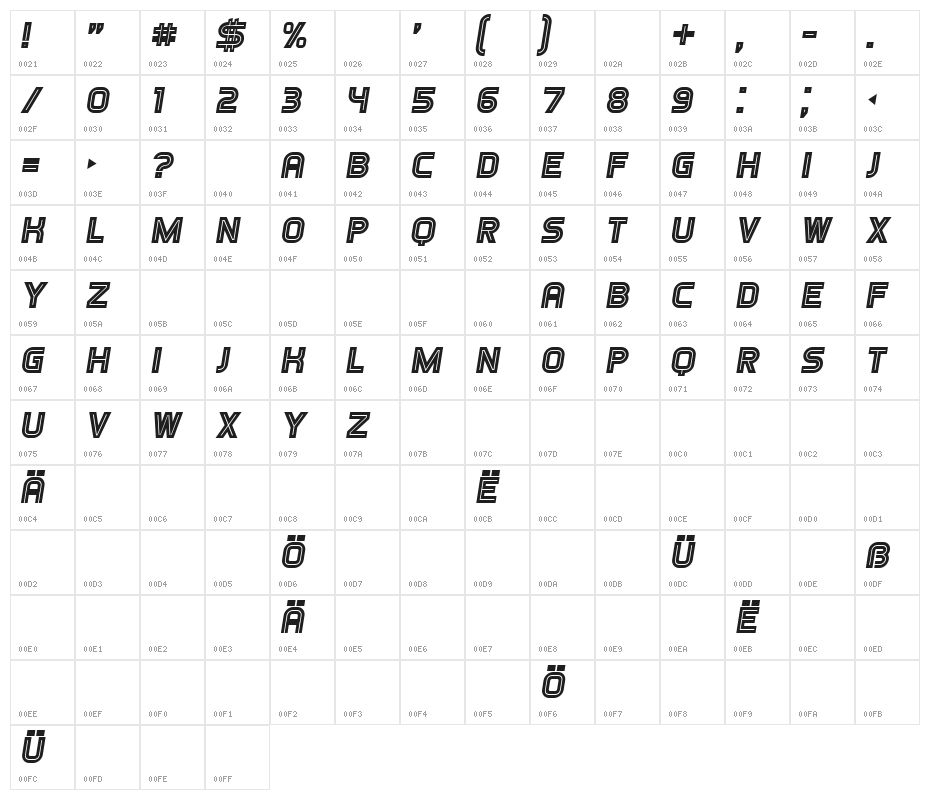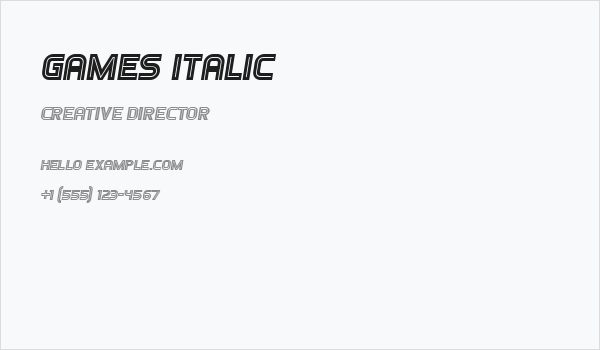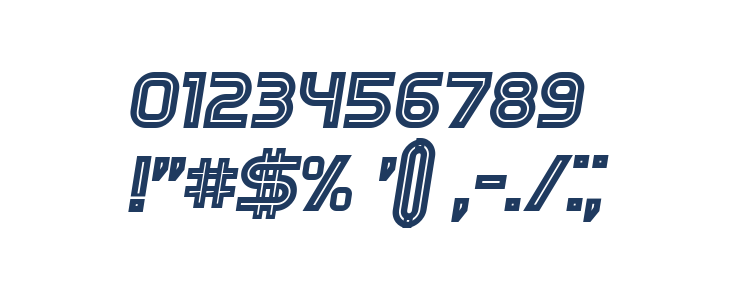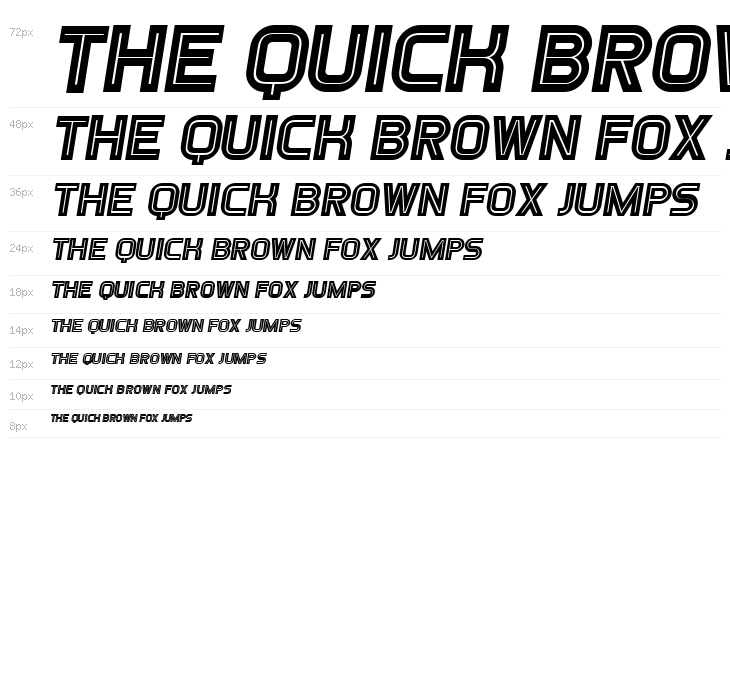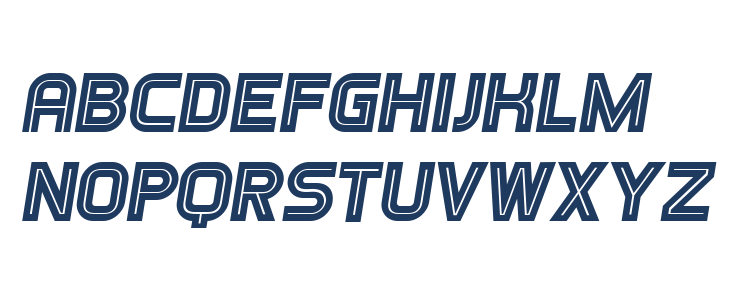
Games Italic Font
Games Italic Description
This font features a bold, italicized style with a futuristic and sporty appearance. The characters are outlined, giving them a three-dimensional effect that enhances their dynamic look. The uppercase letters are uniform in height, while the numbers and special characters maintain a consistent style, contributing to a cohesive overall design. The font's geometric shapes and clean lines make it suitable for modern and energetic themes. Its italic slant adds a sense of motion and speed, ideal for projects that require a sense of urgency or excitement.
| Proposed Projects | Ideal for sports branding, video game titles, dynamic posters, and modern advertising campaigns. |